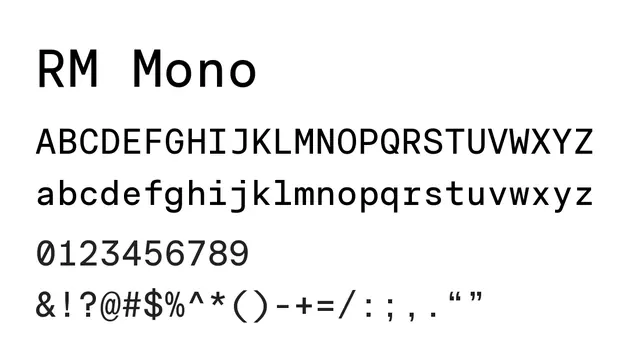
RM Mono
A clean, geometric monospace with even proportions ideal for code and technical interfaces.
Perfect for code editors, terminal windows, and technical documentation where clarity and consistent spacing are essential. Works well for structured data display and programming contexts.
Pairs well with RM Neue for clean, modern tech stacks or with Romie for editorial projects mixing code and narrative.